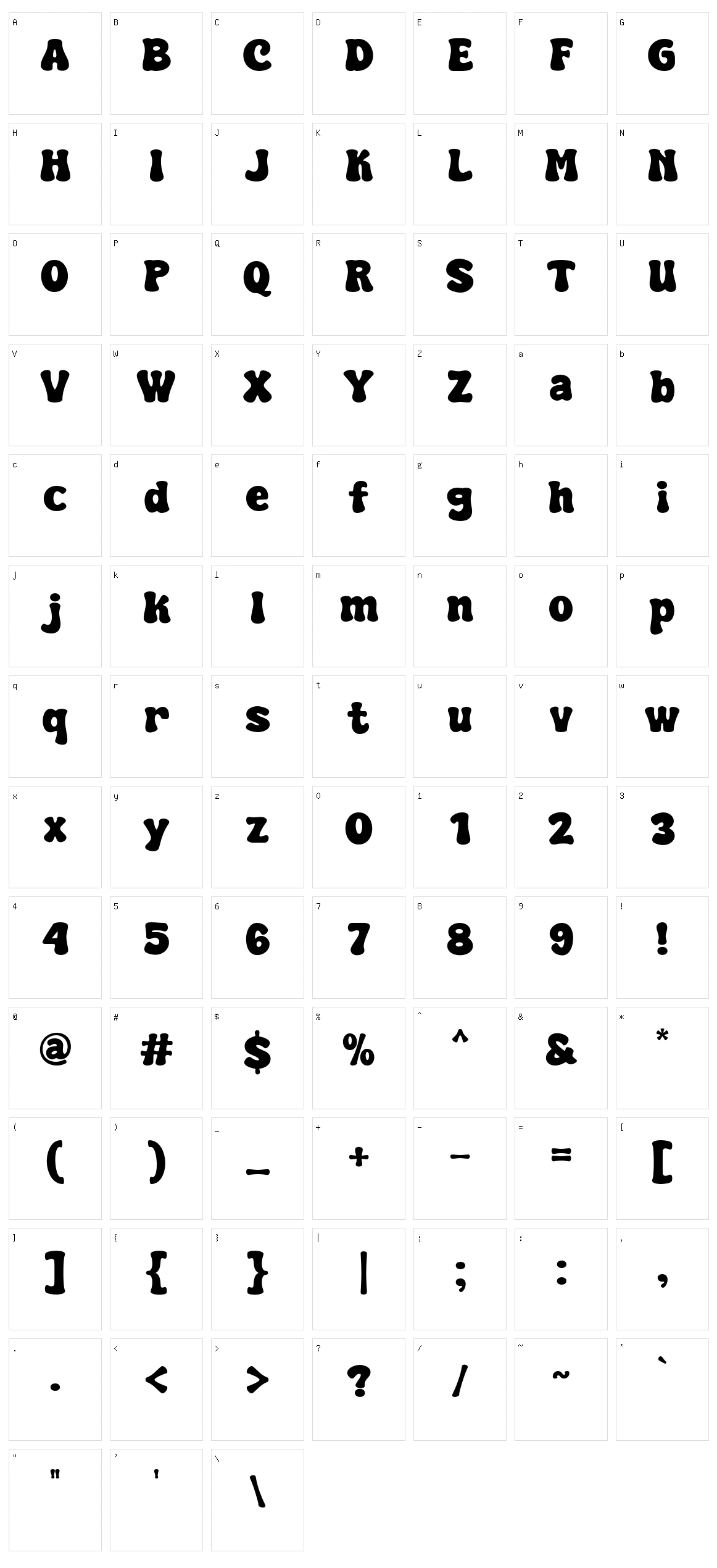
The free font Super Dream is carefully designed by fsuarez913, showcasing a thoughtful balance of creativity and usability and falls under the Groovy font style. When you download the ZIP file, it contains only 83.05 KB of font files, making it lightweight and quick to download. Please review the license details below to understand permitted usage and distribution rights. If license information is not available, we recommend using this font for personal projects only or contacting the author directly for commercial usage permissions.